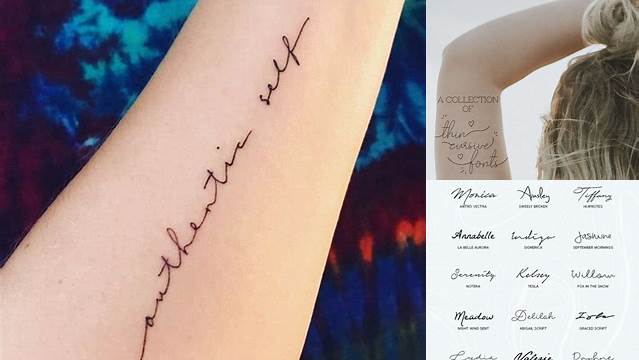
Elegant Thin Cursive Fonts: Perfect Tattoo Designs
Hey guys! Planning a tattoo? Want something super elegant and delicate? Then, you're probably thinking about thin cursive fonts for tattoos. These fonts are all the rage because they add a touch of sophistication and personal flair to your body art. Let's dive into why they're so popular and how to choose the perfect one for you. We'll explore everything from readability to placement, ensuring your tattoo looks stunning for years to come.
The Allure of Thin Cursive Fonts
So, why are thin cursive fonts for tattoos such a hit? Well, it's simple. They exude a sense of elegance and grace that's hard to match. Unlike bolder, more graphic fonts, thin cursive offers a delicate, almost ethereal quality. This makes them ideal for conveying sentiments, names, or quotes that are deeply personal. Plus, they can be incredibly versatile, fitting seamlessly into various tattoo styles, whether you're going for a minimalist look or incorporating them into a more elaborate design. When thinking about thin cursive fonts for tattoos, consider the overall message. The font should complement the meaning behind your tattoo, enhancing its emotional impact. Imagine having a beautiful quote inked in a thin cursive font that flows gracefully across your skin. The elegance and fluidity of the font can amplify the sentiment, making it even more profound. Don't forget to think about the ink color too; a lighter shade might enhance the delicate appearance of the font, while a darker color could make it pop more. Ultimately, the key is to find a balance that reflects your personal style and the message you want to convey.
Readability Matters: Choosing Wisely
Readability is absolutely crucial when it comes to thin cursive fonts for tattoos. I can't stress this enough, guys! A font might look gorgeous on a screen, but how will it hold up once it's inked onto your skin? Thin cursive fonts, by their nature, can sometimes be challenging to read, especially if the letters are too close together or overly stylized. Before you commit to a specific font, make sure it's legible from a reasonable distance. Ask your tattoo artist for their opinion – they have experience with how different fonts translate onto skin and can offer valuable insights. Consider the size of your tattoo as well. If you're opting for a smaller piece, a simpler, less ornate thin cursive font might be a better choice. Overly intricate details can blur over time, making the tattoo illegible. Think about spacing between the letters and words. Ample space can make the font easier to read and prevent it from looking cluttered. Remember, a tattoo is a permanent piece of art, so you want to make sure it's not only beautiful but also easily understood. Taking the time to consider readability will ensure that your tattoo remains a cherished piece for years to come.
Popular Thin Cursive Font Styles
When it comes to thin cursive fonts for tattoos, you've got a plethora of styles to choose from! Each one brings its unique flair, so let's explore some popular options. Script fonts are a classic choice, known for their elegant loops and flowing lines. They're perfect for adding a touch of sophistication to your tattoo. Calligraphy-inspired fonts mimic the art of beautiful handwriting, lending a personal and artistic touch. These fonts often feature varying stroke widths, creating a dynamic and visually appealing effect. Then there are modern cursive fonts, which offer a contemporary twist on traditional cursive. They often have cleaner lines and a more minimalist aesthetic, making them ideal for those seeking a subtle yet stylish look. Consider italic fonts as well, which lean slightly to the right, adding a sense of movement and energy to your tattoo. And don't forget about vintage-inspired cursive fonts, which evoke a sense of nostalgia and timeless charm. When selecting a font, think about the overall vibe you want to achieve. Do you want something classic and refined? Or perhaps something more modern and edgy? Explore different options and see which one resonates with you the most.
Placement Matters: Where to Put Your Tattoo
Placement is everything, guys! Choosing the right spot for your thin cursive fonts for tattoos can significantly enhance its overall aesthetic. Certain areas of the body lend themselves particularly well to delicate, flowing fonts. For instance, the wrist is a popular choice, as it provides a subtle and elegant canvas for a small cursive tattoo. The forearm is another great option, offering more space for longer quotes or names. The collarbone area is also a favorite, as it allows the tattoo to drape gracefully along the natural curves of the body. For those seeking a more discreet placement, the ankle or the back of the neck can be ideal. Consider the natural contours of your body when choosing a location. A thin cursive font can be strategically placed to accentuate your features and create a visually appealing effect. Think about how the tattoo will look with different outfits and in various settings. Do you want it to be easily visible, or do you prefer something more hidden? Also, consider the pain factor. Some areas of the body are more sensitive than others, so factor that into your decision-making process. Ultimately, the best placement is one that you feel comfortable with and that complements the overall design of your tattoo.
Sizing Considerations for Thin Cursive Tattoos
Okay, let's talk size! The size of your thin cursive fonts for tattoos is a critical factor that impacts both readability and the overall aesthetic appeal. Too small, and the fine lines of the cursive can blur together over time, making it difficult to decipher. Too large, and the delicate elegance of the font can be lost. Finding the right balance is key. Consider the length of the word or phrase you want to tattoo. Longer quotes will naturally require a larger space, but it's essential to ensure that the font remains legible even when stretched out. Talk to your tattoo artist about the ideal size for your chosen font and placement. They can provide valuable insights based on their experience and expertise. Remember that the size of your tattoo will also affect the level of detail that can be incorporated. Intricate flourishes and embellishments might look stunning on a larger scale, but they can become muddled and indistinct if the tattoo is too small. Think about the overall impact you want to achieve. Do you want your tattoo to be a subtle statement piece, or do you want it to stand out and make a bold impression? The size of your font will play a significant role in achieving that goal.
Ink Colors: Enhancing the Font's Appeal
The color of the ink can dramatically transform the appearance of thin cursive fonts for tattoos. While black ink is a classic and timeless choice, don't be afraid to explore other options! Lighter shades, such as gray or even white, can create a more subtle and ethereal effect, perfect for those seeking a delicate and understated look. Colored inks can add a pop of personality and vibrancy to your tattoo. Consider colors that complement your skin tone and the overall design of the tattoo. For instance, a soft pink or lavender can add a feminine touch, while a deep blue or green can evoke a sense of mystery and intrigue. Metallic inks, such as gold or silver, can add a touch of luxury and glamour. However, keep in mind that metallic inks can sometimes fade or change color over time, so it's essential to choose a reputable tattoo artist who has experience working with these types of inks. Think about the contrast between the ink color and your skin tone. A high-contrast combination will make the tattoo stand out more, while a low-contrast combination will create a more subtle effect. Ultimately, the best ink color is one that you love and that complements your personal style.
Aftercare: Protecting Your Delicate Tattoo
Alright, you've got your stunning thin cursive fonts for tattoos, now what? Aftercare is non-negotiable, guys! Proper aftercare is crucial for ensuring that your tattoo heals correctly and remains vibrant for years to come. Your tattoo artist will provide you with specific instructions, but here are some general guidelines to follow. Keep the tattoo clean by gently washing it with mild soap and water. Avoid using harsh chemicals or abrasive scrubs. Pat the tattoo dry with a clean towel – don't rub it. Apply a thin layer of tattoo-specific ointment or moisturizer to keep the skin hydrated. Avoid over-moisturizing, as this can hinder the healing process. Protect the tattoo from direct sunlight by covering it with clothing or using sunscreen. Avoid swimming, soaking in bathtubs, or using saunas until the tattoo is fully healed. Refrain from picking or scratching the tattoo, as this can lead to infection and scarring. Be patient! The healing process can take several weeks, so it's essential to follow the aftercare instructions diligently. If you notice any signs of infection, such as redness, swelling, or pus, consult a doctor immediately. Remember, taking good care of your tattoo is an investment in its longevity and beauty.
Nobody's perfect, but when it comes to thin cursive fonts for tattoos, avoiding these common mistakes can save you a lot of grief! First off, rushing the decision-making process. Don't just pick the first font you see. Take your time to explore different options and find one that truly resonates with you. Ignoring readability is another big no-no. Make sure the font is legible, even from a distance. Overly intricate or stylized fonts can become a blurry mess over time. Not considering the placement. The location of your tattoo can significantly impact its overall aesthetic. Choose a spot that complements the design and enhances your body's natural curves. Skimping on the research. Find a reputable tattoo artist who has experience working with thin cursive fonts. Their expertise can make all the difference in the final outcome. Neglecting aftercare. Proper aftercare is essential for ensuring that your tattoo heals correctly and remains vibrant for years to come. Not being open to suggestions. Your tattoo artist might have valuable insights and recommendations based on their experience. Be open to their feedback and collaborate to create the perfect tattoo. Remember, a tattoo is a permanent piece of art, so it's worth taking the time to do it right.
Finding the Right Tattoo Artist
Seriously guys, finding the right artist is half the battle when it comes to thin cursive fonts for tattoos. You want someone who's not just talented, but also experienced with the delicate nature of cursive work. Start by doing your homework. Look at portfolios online, check out their social media, and read reviews. See if they have a consistent style that you admire. Don't be afraid to ask questions. How long have they been tattooing? Have they done many thin cursive pieces before? What's their approach to ensuring readability? A good artist will be happy to answer your questions and put your mind at ease. Schedule a consultation. This is a great opportunity to discuss your ideas, show them examples of fonts you like, and get their feedback. Pay attention to their studio environment. Is it clean and professional? Do they follow strict hygiene practices? Trust your gut. If something feels off, don't hesitate to walk away. Remember, you're entrusting them with a permanent piece of art on your body, so you want to feel confident and comfortable with your choice. A skilled and experienced tattoo artist can bring your vision to life and create a stunning tattoo that you'll cherish for years to come.
The Future of Thin Cursive Tattoo Trends
So, what's next for thin cursive fonts for tattoos? Trends are always evolving, guys! While thin cursive has been a classic for ages, expect to see some cool new twists and interpretations in the future. Think about more personalized fonts. Imagine tattoo artists creating custom thin cursive fonts based on your own handwriting or the handwriting of a loved one. Expect to see more integration of technology. Maybe tattoos that incorporate augmented reality elements, where the thin cursive comes to life when viewed through a smartphone. There's also the possibility of more sustainable ink options. As people become more environmentally conscious, expect to see a rise in inks that are made from natural, eco-friendly ingredients. Minimalism is likely here to stay. Simple, understated thin cursive tattoos will continue to be popular, as people seek out meaningful and timeless designs. Experimentation with placement will also continue. Expect to see thin cursive tattoos in unexpected and creative locations on the body. The future of thin cursive tattoos is bright and full of possibilities. As technology advances and artistic expression continues to evolve, we can expect to see even more innovative and stunning designs in the years to come.